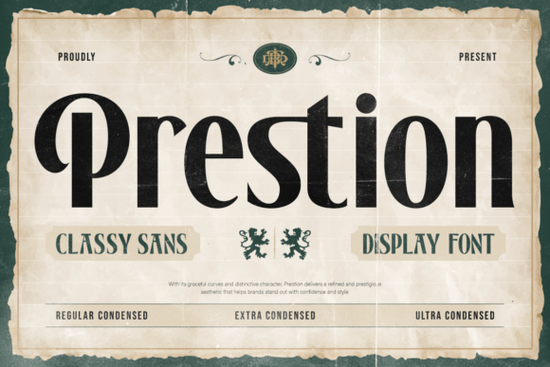
Designers, crafters, and small business owners often look for fonts that can deliver strong visual impact without taking up too much space. If you're searching for a versatile and elegant typeface, the Prestion Font is worth considering. This condensed sans-serif font is ideal for situations where space is limited but style still needs to shine. Whether you're working on headlines, branding, or editorial layouts, Prestion offers a professional and striking appearance.
One of the standout features of Prestion is its ability to maintain readability even when compressed. The font’s vertical structure and refined curves ensure that it remains legible at various sizes. This makes it especially useful for projects where text needs to be concise yet impactful. From regular condensed to ultra condensed, each style is designed with attention to detail, allowing you to fit more text without sacrificing visual appeal.
How does Prestion stand out from other fonts?
Prestion draws inspiration from vintage newspapers and classic signage, giving it a timeless feel. Its tight spacing and tall proportions make it perfect for creating eye-catching designs. Unlike some fonts that become less readable when condensed, Prestion keeps its elegance and clarity across all weights. This makes it a go-to choice for designers who need a bold yet sophisticated look.
Best uses for the Prestion Font
The versatility of Prestion makes it suitable for a wide range of applications. It works well for headlines in magazines, logos for brands, and even social media posts where space is limited. Its strong visual presence ensures that your message is clear and memorable. For print-on-demand sellers, this font can help create visually appealing products without overcrowding the design.
What should you consider before using Prestion?
Before incorporating Prestion into your design, it's important to test it in different contexts. While it’s highly readable in most cases, certain combinations with other fonts or background colors may affect its performance. Always review your work at various sizes to ensure that the font maintains its intended look and feel.
Whether you're designing for print, digital, or online platforms, the Prestion Font provides a powerful and elegant solution. Its combination of condensed design and refined details makes it a valuable addition to any designer’s toolkit. By choosing the right font for your project, you can enhance the visual appeal of your work while maintaining clarity and professionalism.